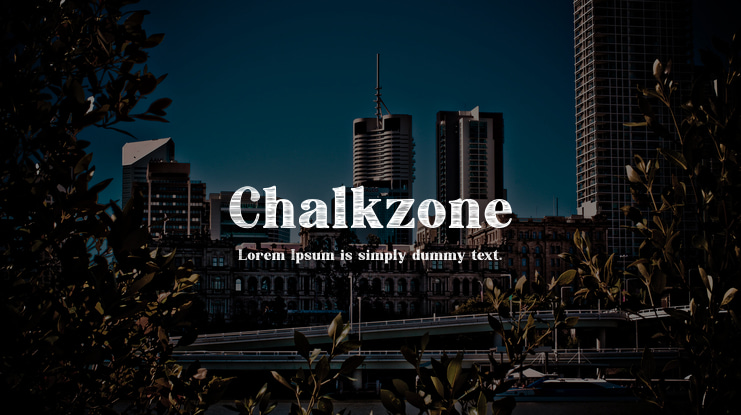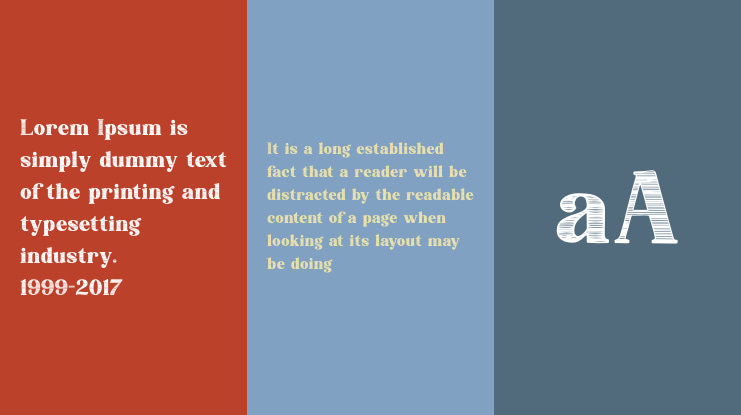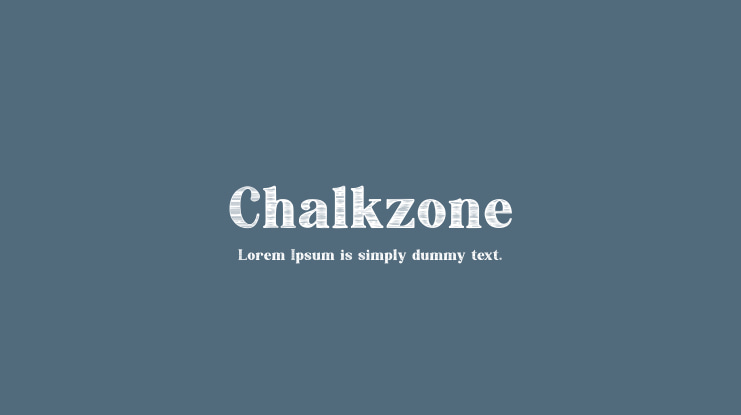
Chalkzone Font
This font designed by Graphix Line Studio is a bold vintage display typeface, that can be used for all chalkboard quotes or teaching material! It will look great for headlines, branding, magazines, logos, and more. Its authentic look will add a personal and realistic feel to your designs.